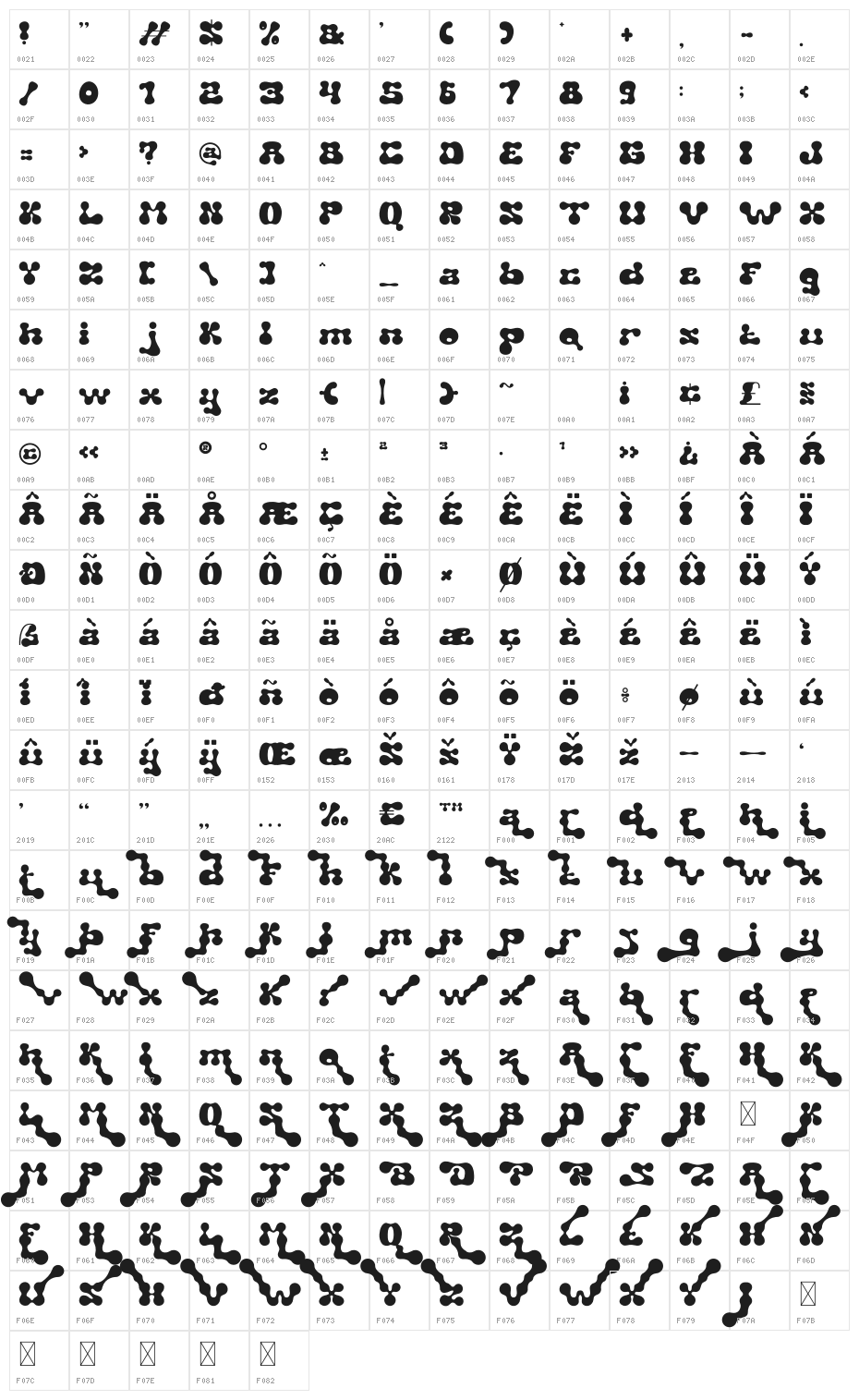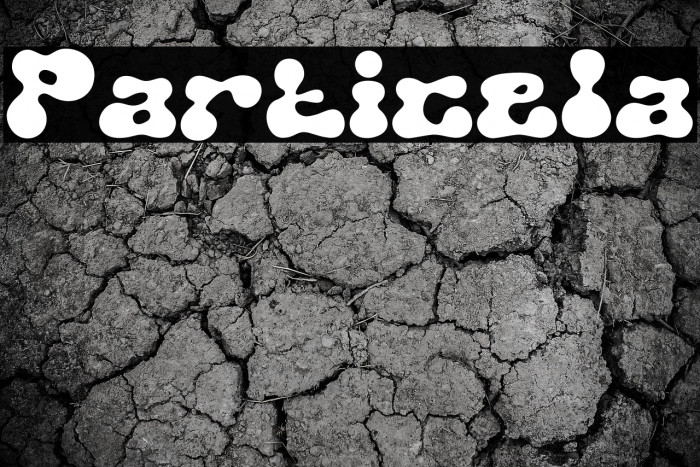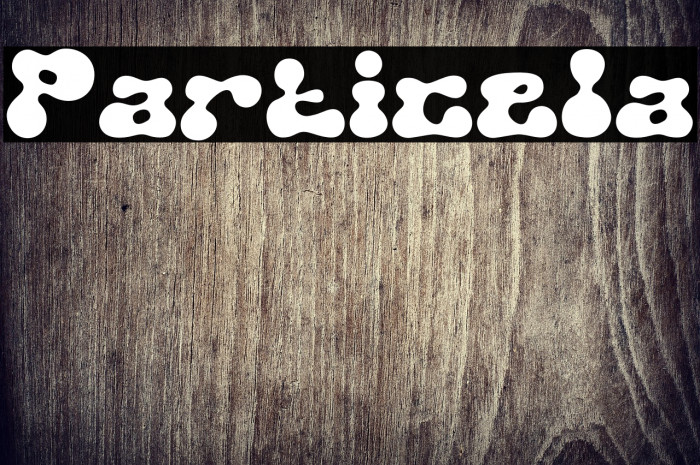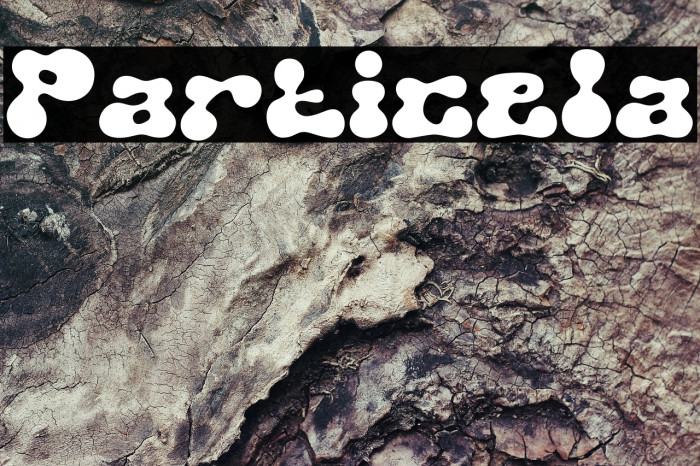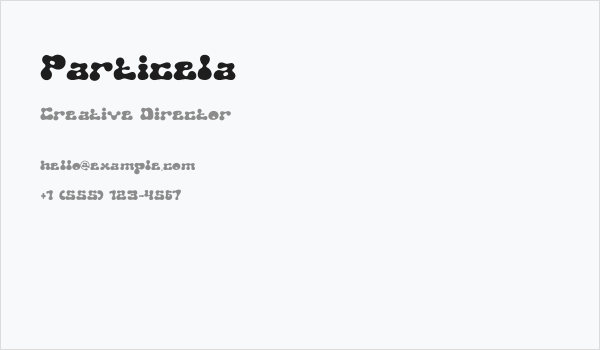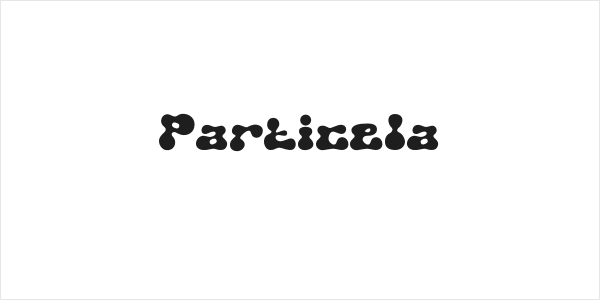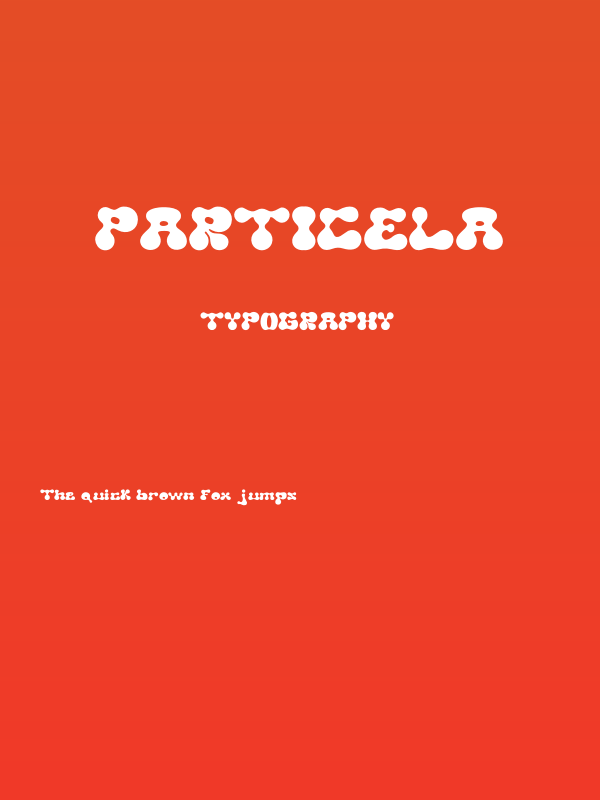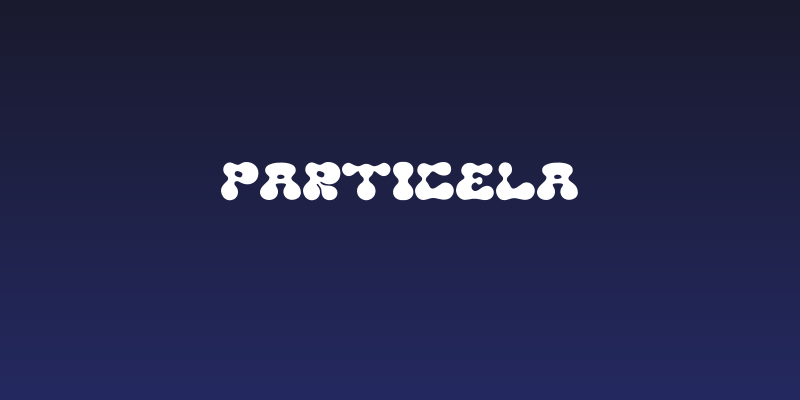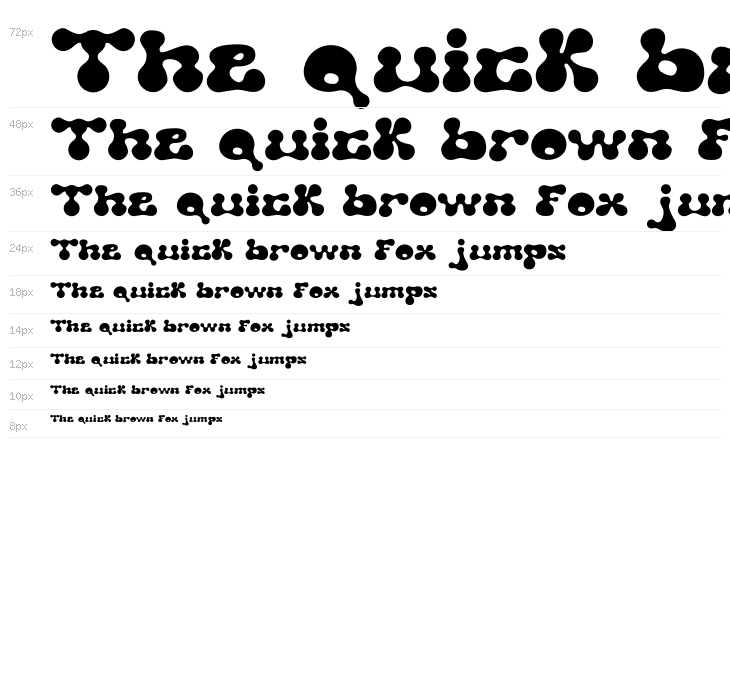
Particela Font
Particela Description
This font features a playful and bold design with rounded, blob-like shapes that create a unique and eye-catching appearance. Each character is crafted with a sense of whimsy, making it ideal for creative and informal projects. The letters are uniformly thick, contributing to a consistent and cohesive look across the alphabet. The numbers and special characters maintain the same playful style, ensuring versatility in various applications. The overall aesthetic is fun and engaging, perfect for designs that aim to capture attention and convey a sense of joy.
Overall StylePlayful
Use CaseLogos, Headlines, Posters
Proposed ProjectsIdeal for children's books, playful branding, party invitations, and creative posters.